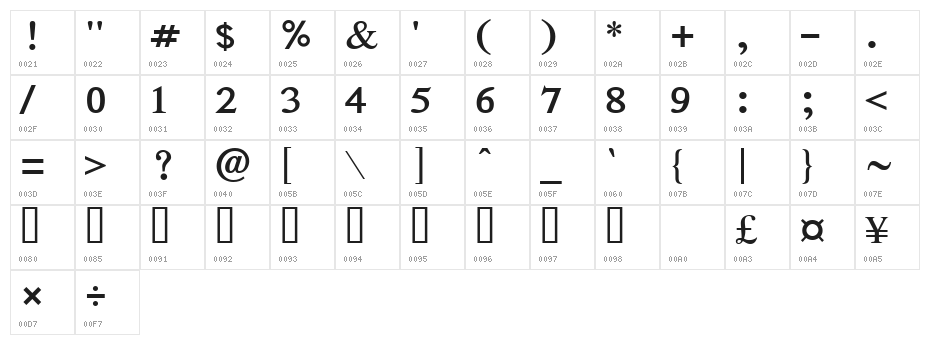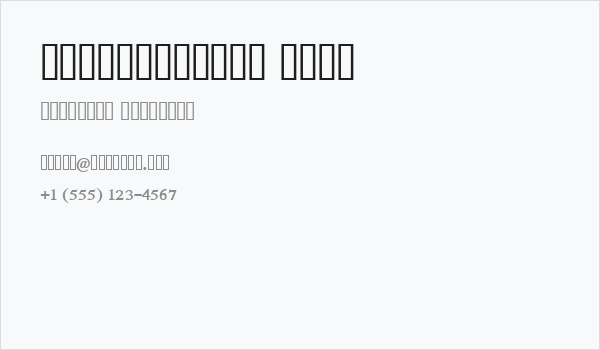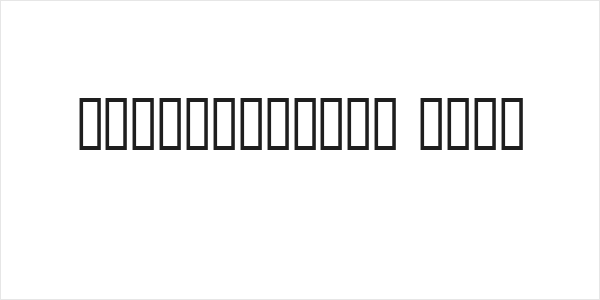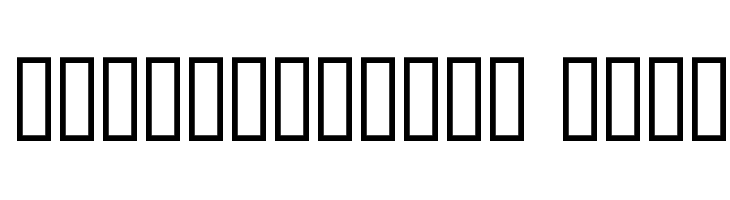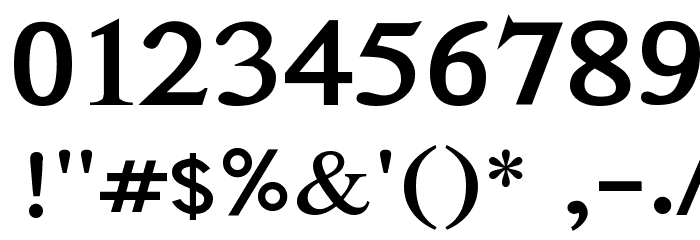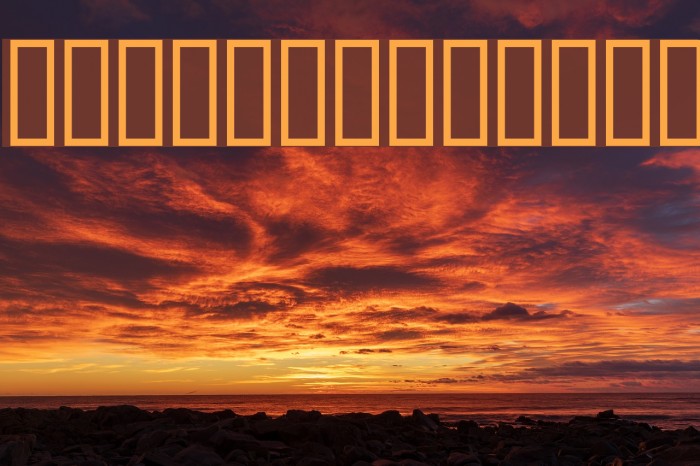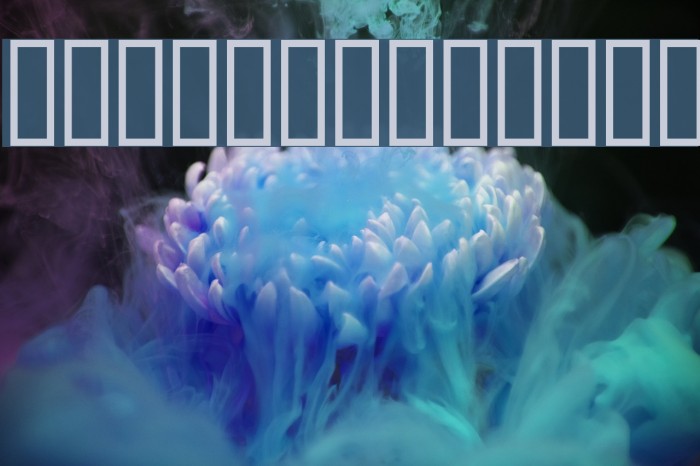
AnmolUniBani Bold Font
AnmolUniBani Bold Description
This font features a bold and robust design, characterized by thick strokes and a strong presence. The characters are well-defined with a clear emphasis on readability, making it suitable for impactful text. The numerals are equally bold, ensuring consistency across all characters. Special characters are designed with the same boldness, maintaining uniformity throughout. The font's style is modern yet classic, offering versatility for various design needs.